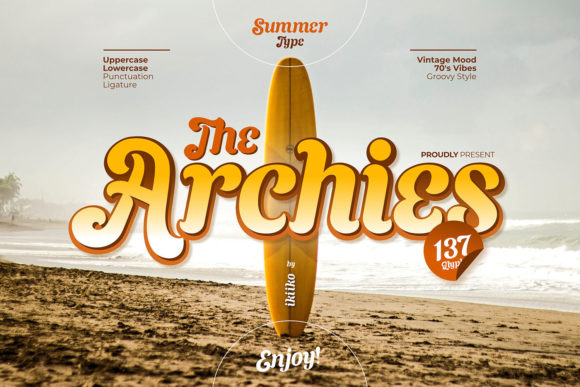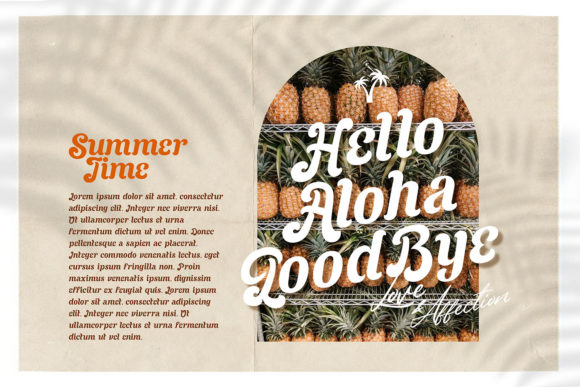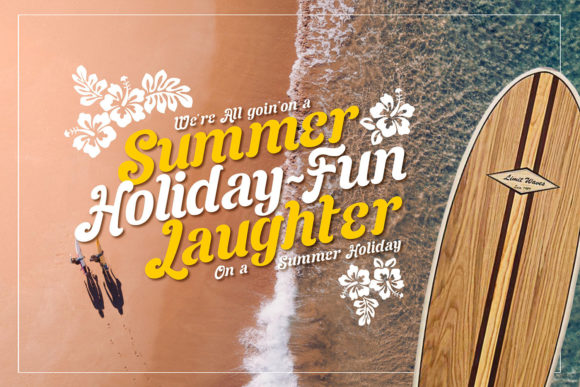
About The Archies Font
The Archies is a beautiful handwritten font that has vintage-styled characters and gives off some cool, holiday vibes. This typeface is perfect for a holiday greeting, summer camp poster, vacation title, tropical designs, and so much more!